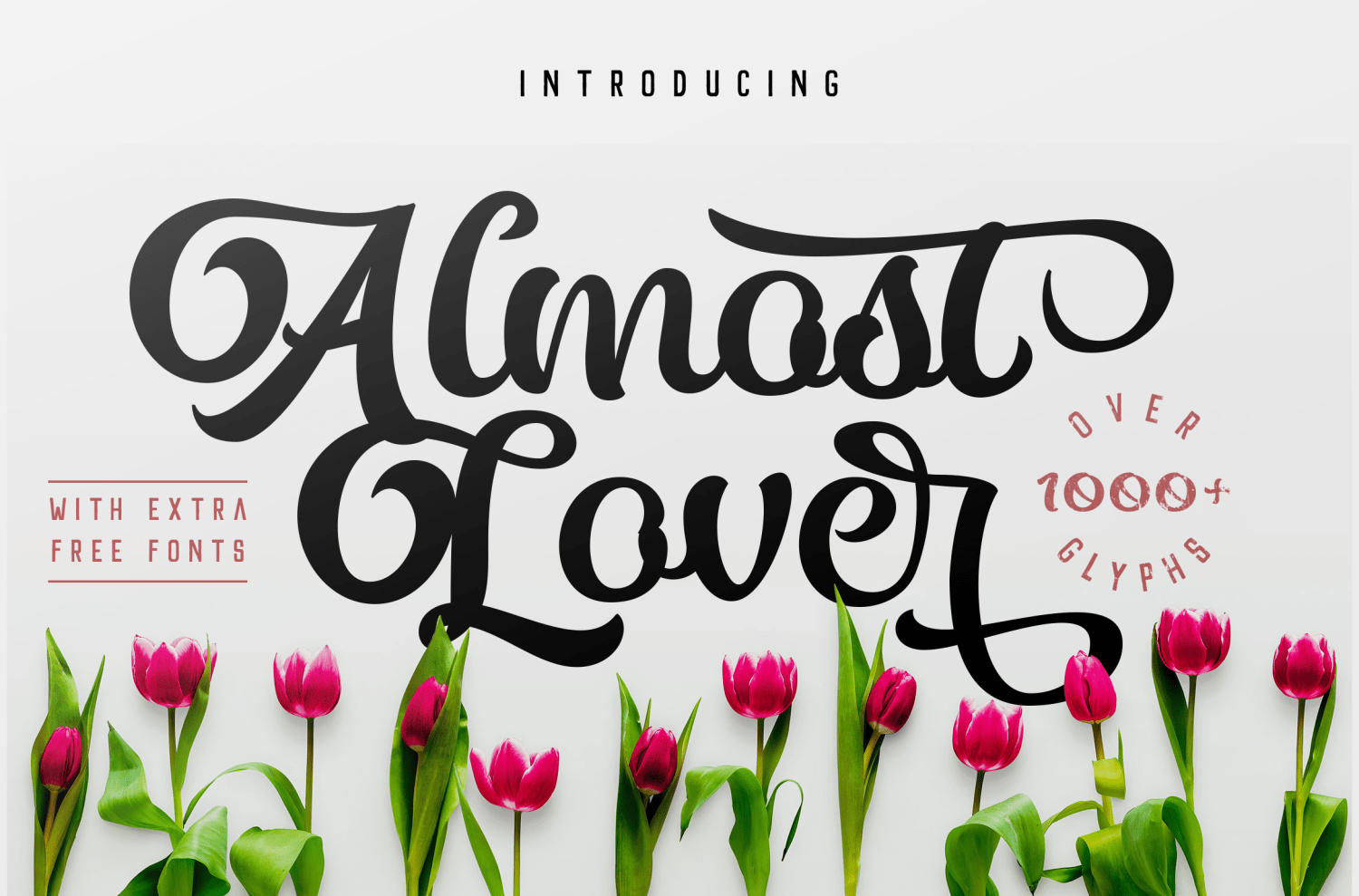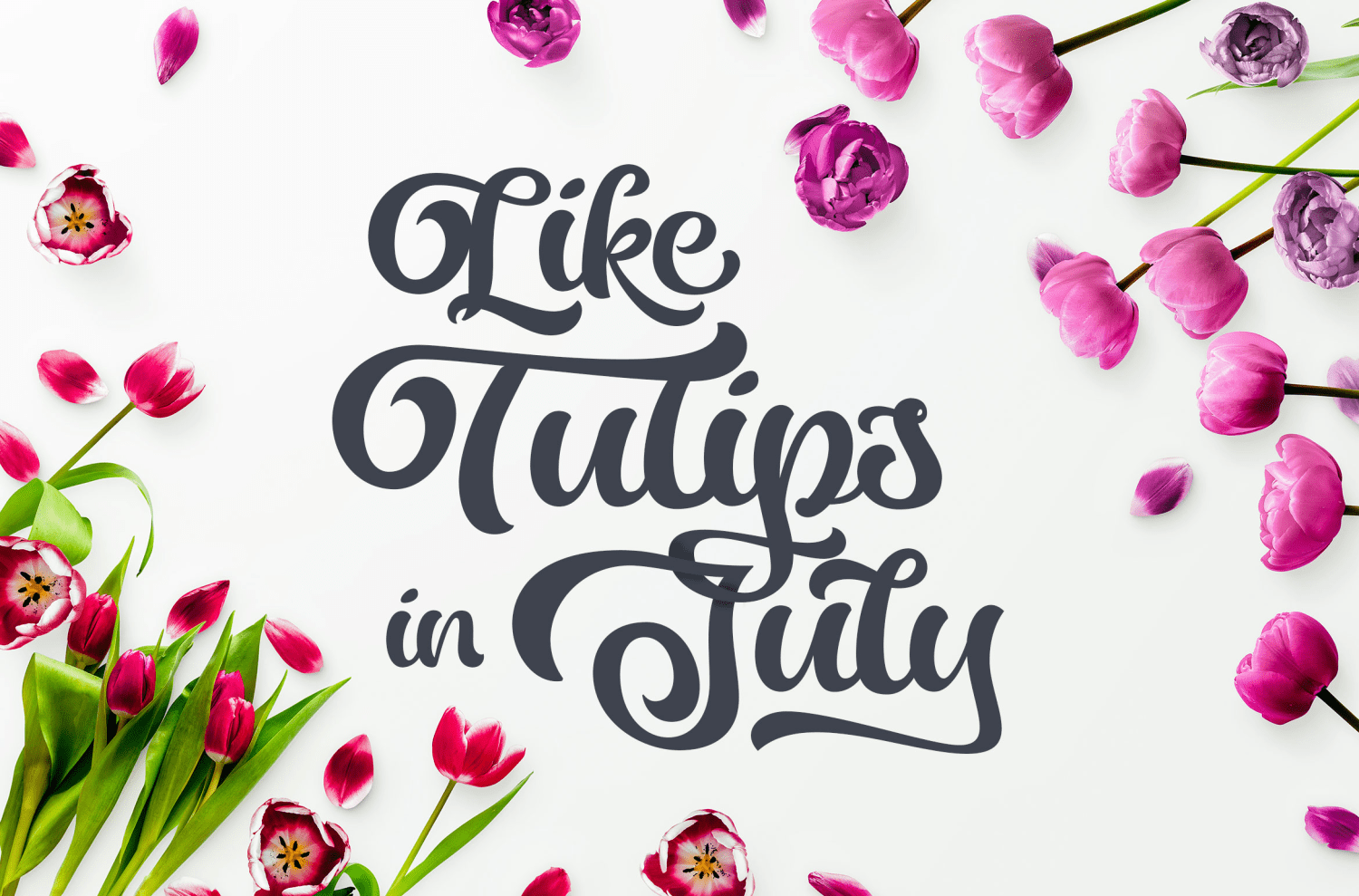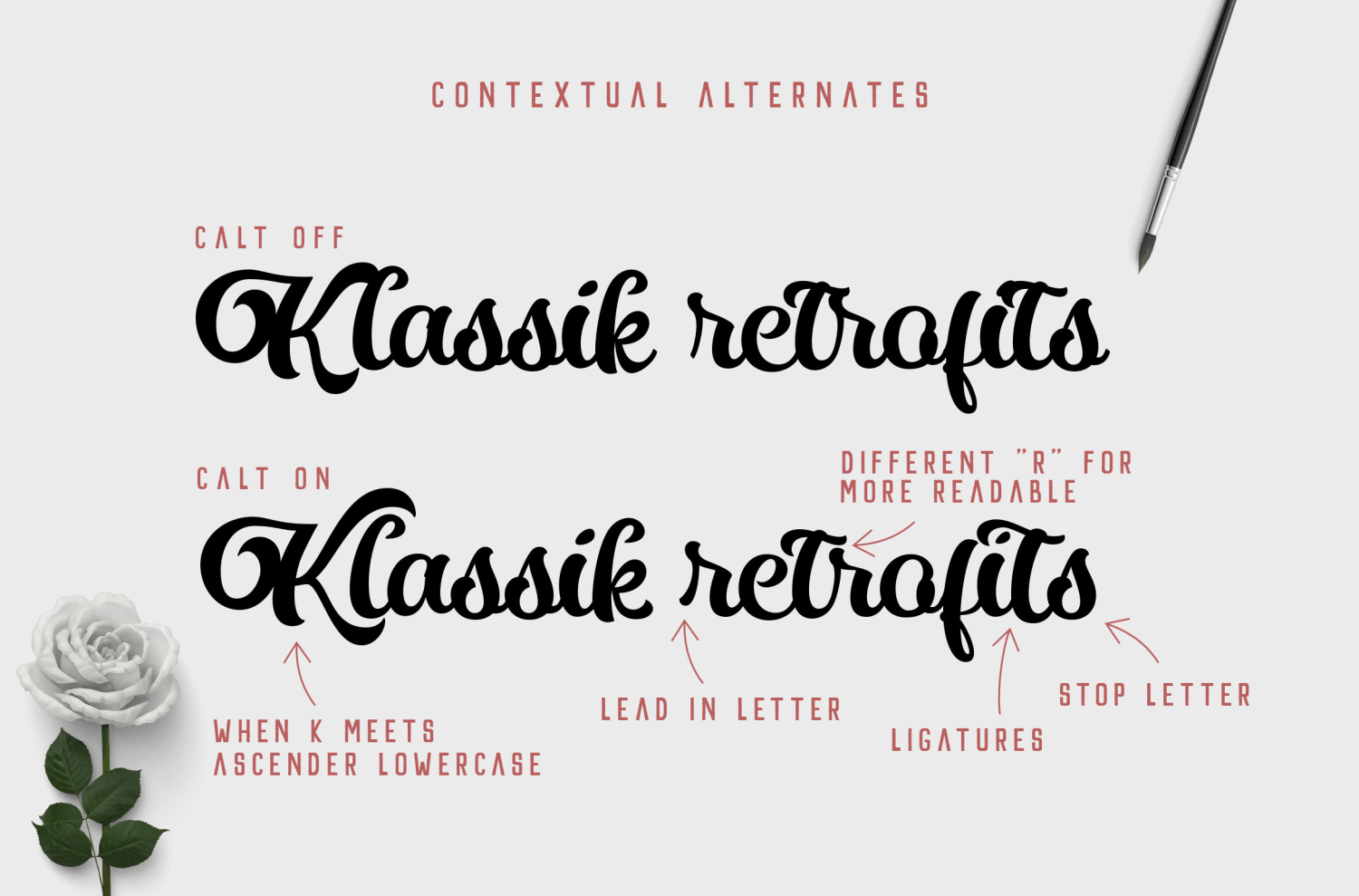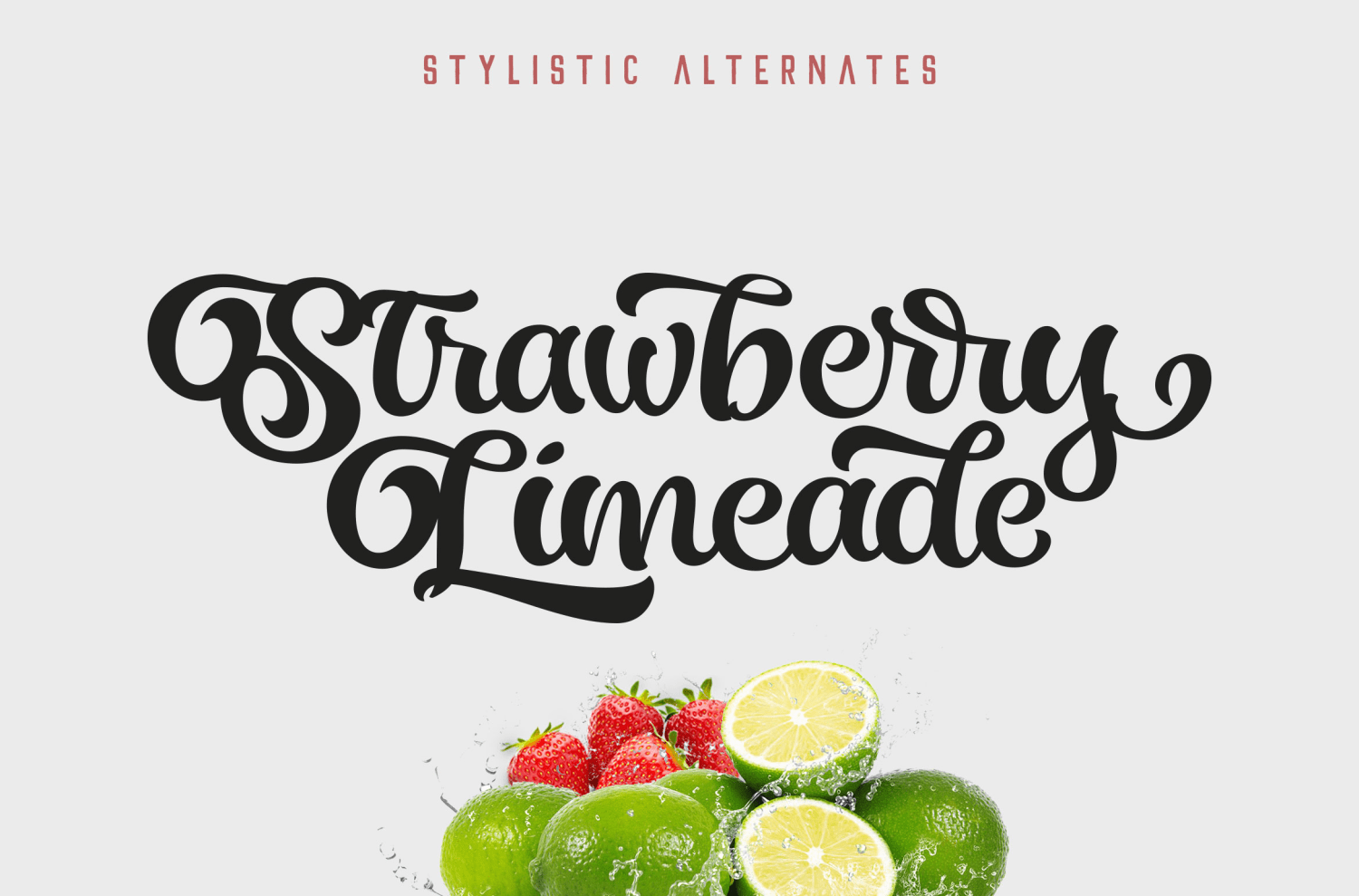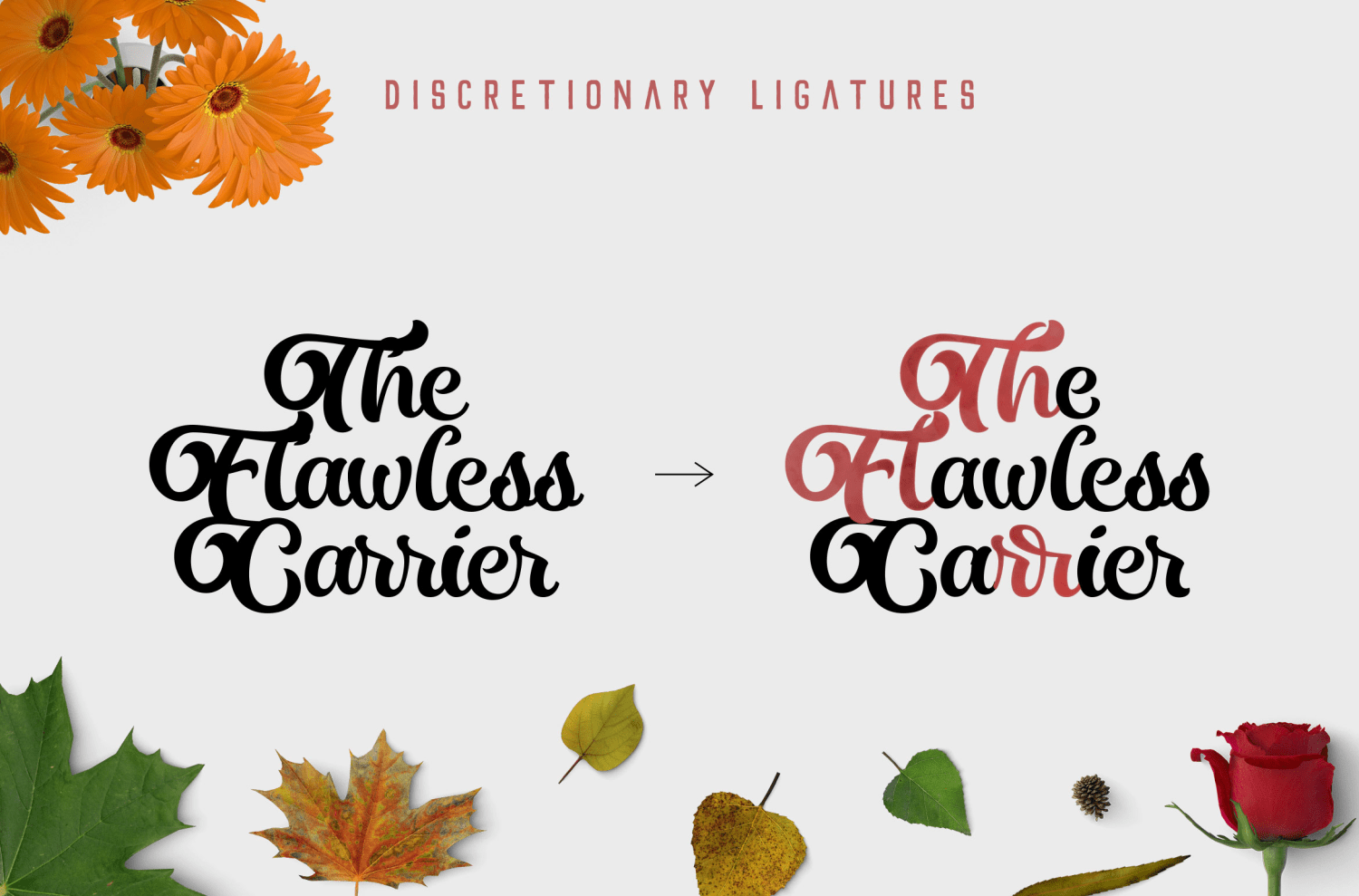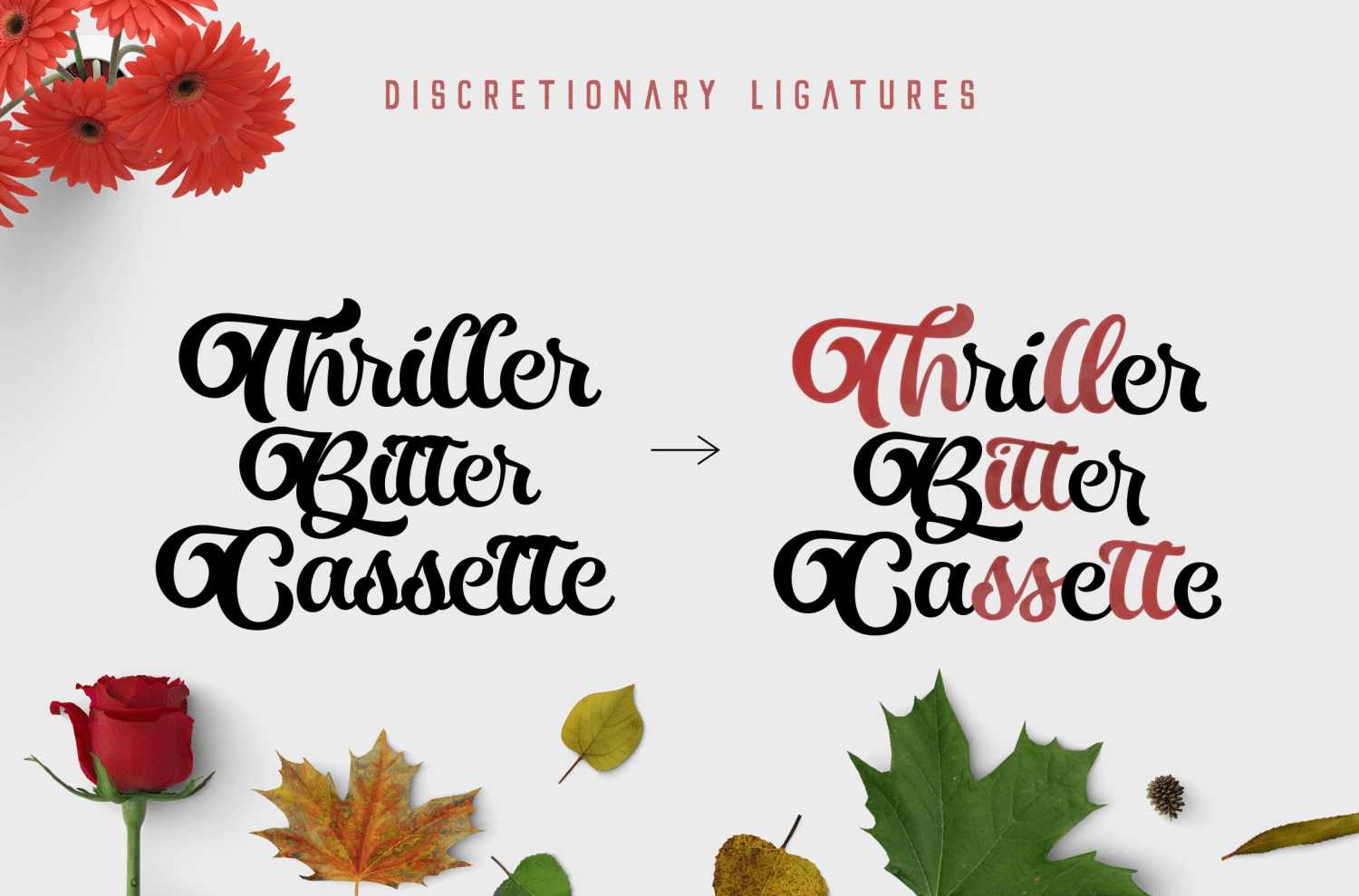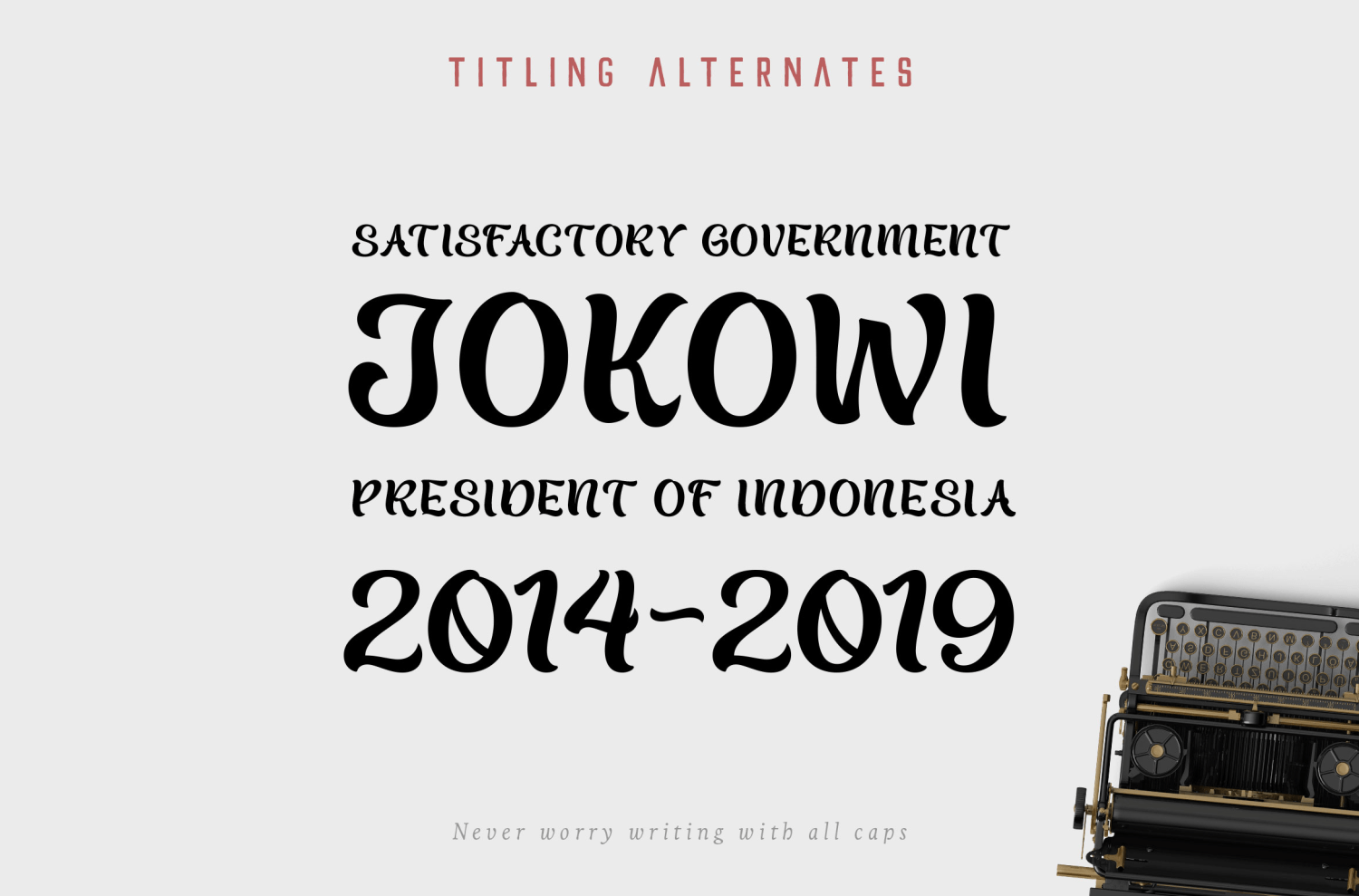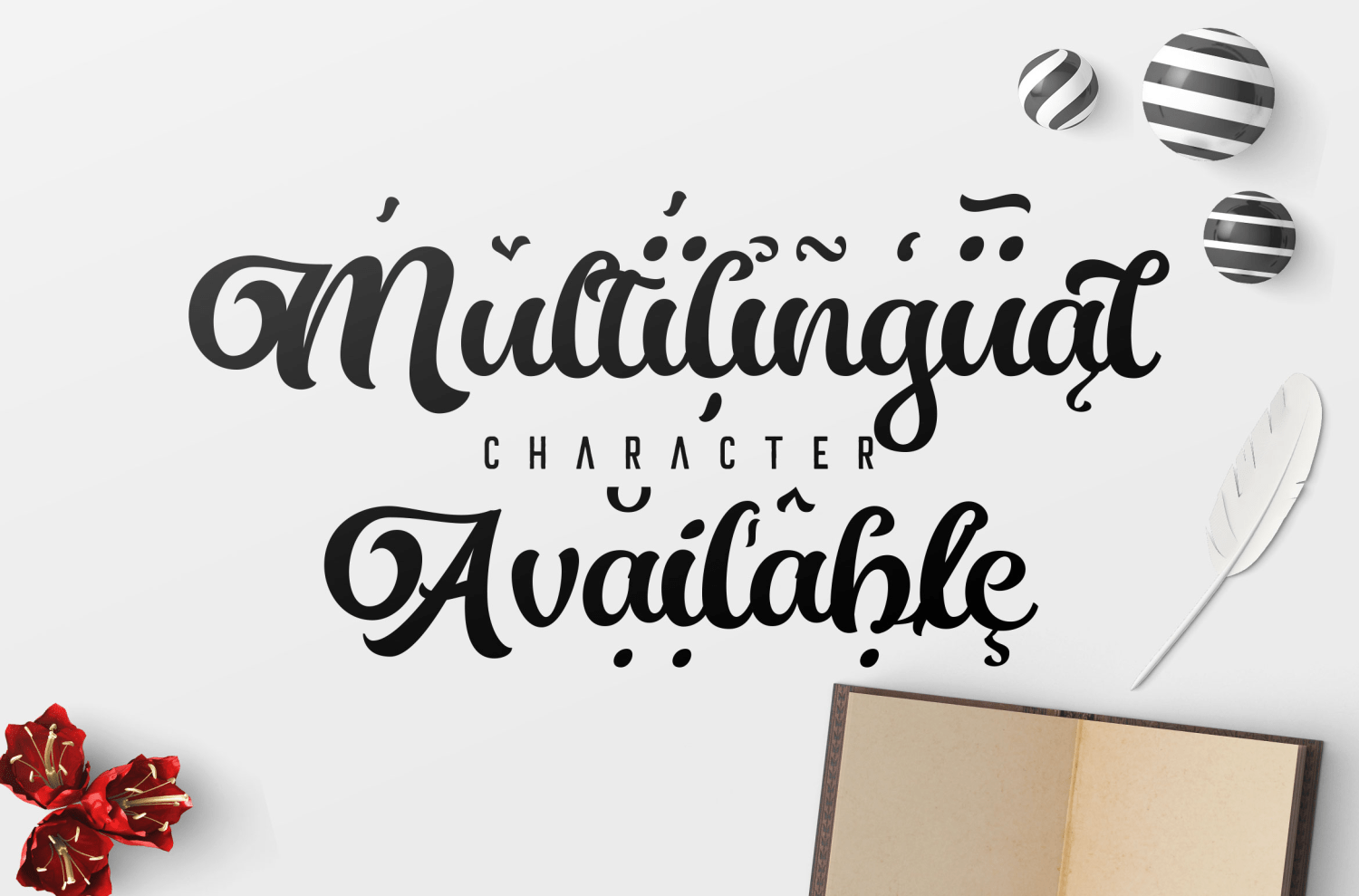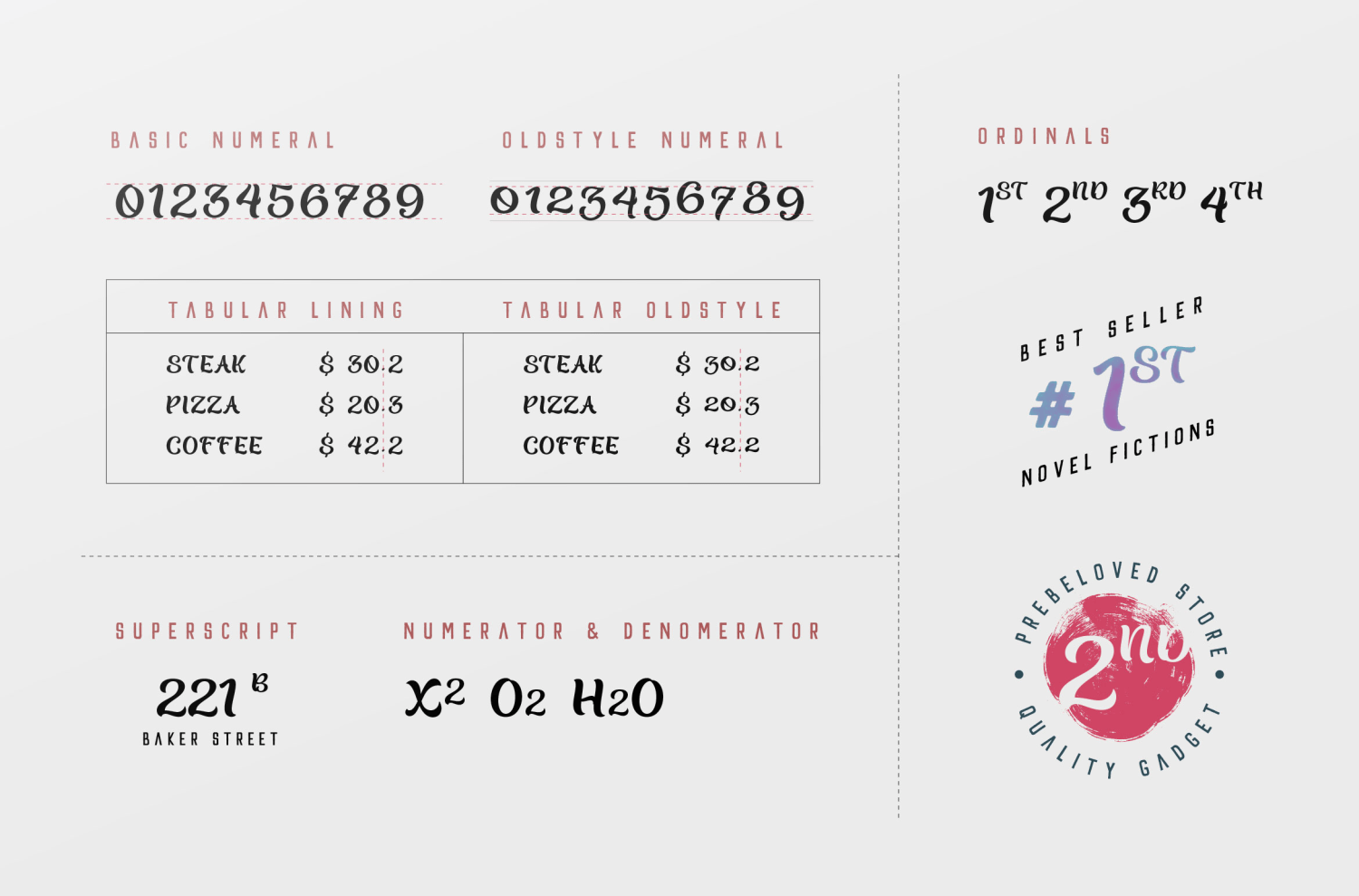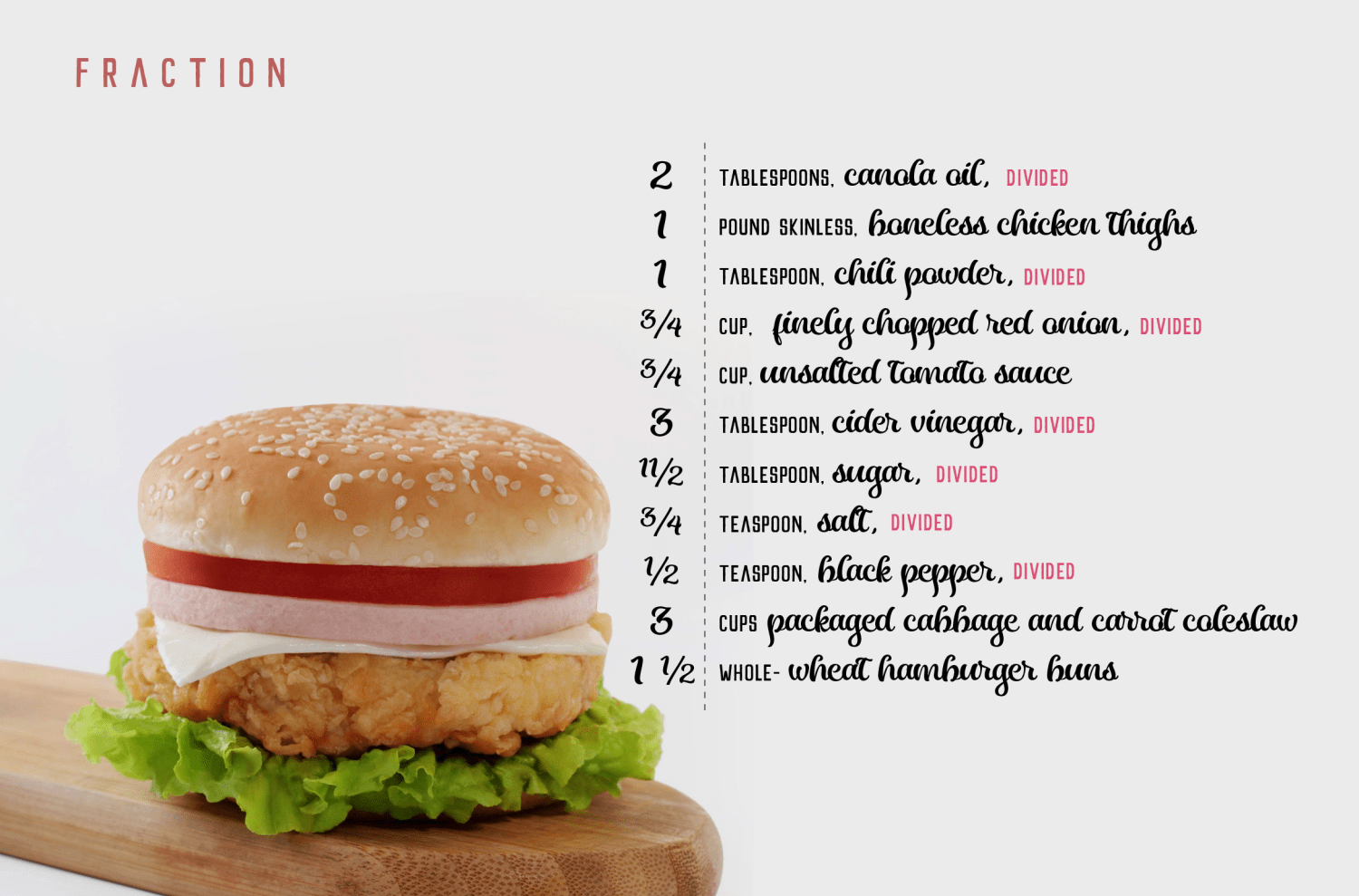
Almost Lover
Script font that have a huge alternate characters this gives many options to choose the best for you. Inspired by the dynamic style of hand lettering script and created not too feminine or masculine to make it more unlimited style for your lovely work such as : logos, posters, invitation, wedding, artistic design, website header, t-shirt, accessories, souvenir, etc.
Over 1,000 Glyphs with up to 25 alternate stylistic characters on some letter, and the Titling Alternates Features replacing the swash at Uppercase with the normal one, so if you want to type with uppercase just use the Titling Alternates. Tabular Lining if you want to create great price menu. Oldstyle Numeral also available if you need it. Punctuation, Mark, Symbol and Multiple Language Available.
Language support : Albanian, azerbaijan, Basque, Catalan, croatian, Danish, Dutch, English, Estonian, Feroese, Finnish Scots, French, Gaelic, Galician, German, Greek Transliterated, Hungarian, Icelandic, Indonesian, Irish, Italian, Nynorsk Bokmal Norwegian, moldovan, Portuguese, Romanian, Slovak, Slovenian, Spanish, Swedish, Tatar, Turkey, etc with basic latin.
Features :
? Contextual Alternates
? Discretionary Ligatures
? Stylistic Alternates
? Titling Alternates
? Numerator & Denominator
? Fraction
? Oldstyle Numeral
? Tabular Lining & Tabular Oldstyle
? Superscript